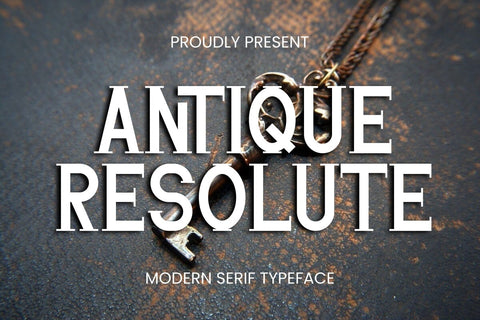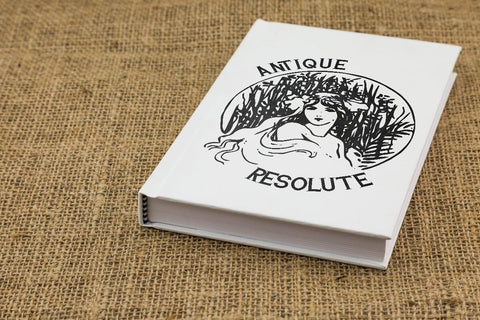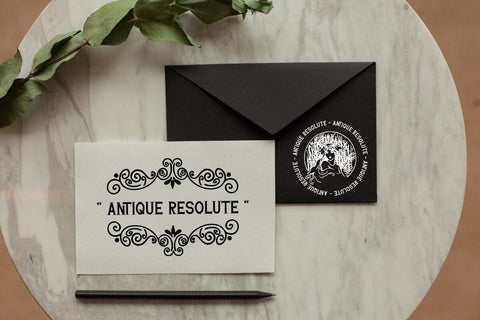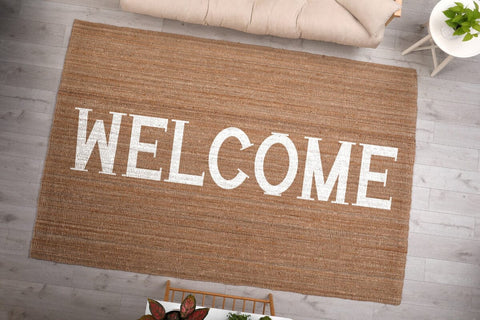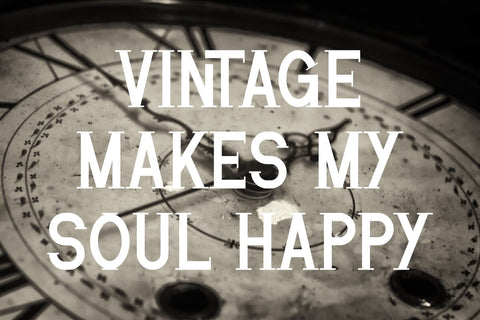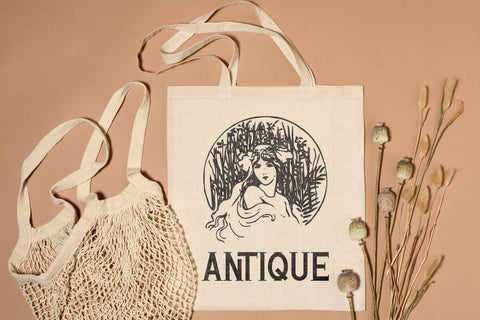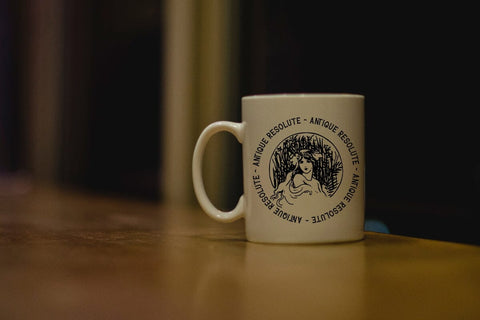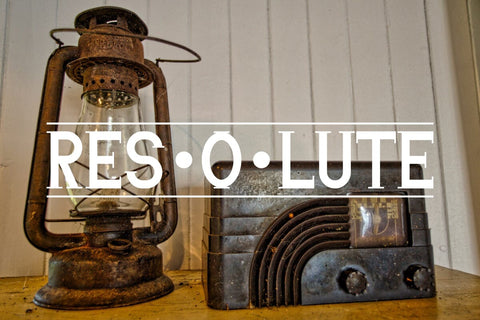
Antique Resolute - Modern Slab Serif Font.
Hi, Introducing Antique Resolute - Modern Slab Serif Font.
A font with a vintage, manly, masculine style. This font is cool for quotes, book covers, t-shirts, titles, posters, tote bags, etc